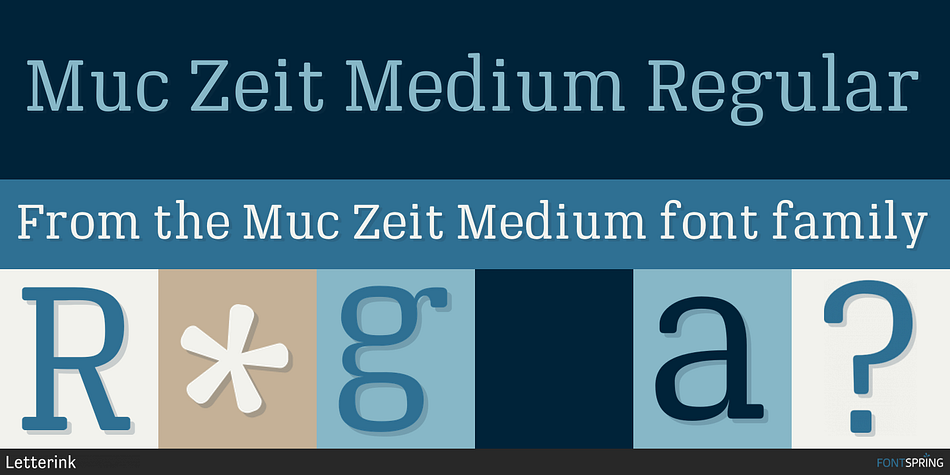
Muc Zeit Medium is a slab serif font published by Design Heroes.
My first typeface created during a semester at a Folkwang University in Essen, Germany, under Eric Faulhaber supervision. It has been sleeping for a couple of years and now I’d like to continue working on it.
Purpose was to create typefaces for movie subtitles, but it aspires to look good on titles and longer texts too.